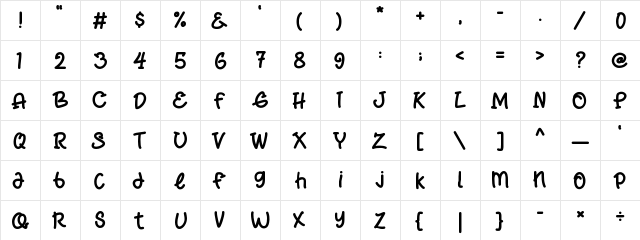
Frappe Latte Regular
Design Context for Frappe Latte Typeface
Frappe Latte is a composed and adaptable typeface that performs quietly and consistently across a wide range of design contexts.
Pro Tip: Use Frappe Latte in both headline and body roles to test its range before committing to a single application.